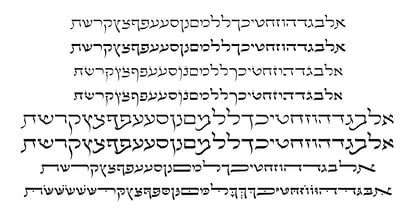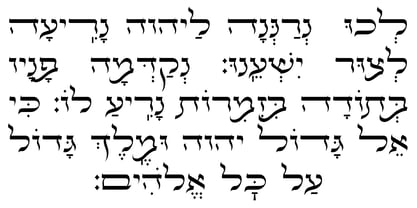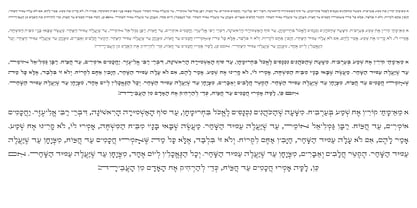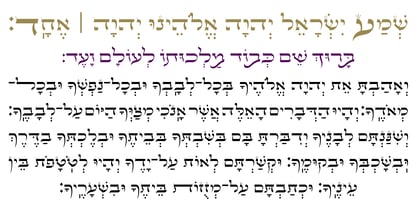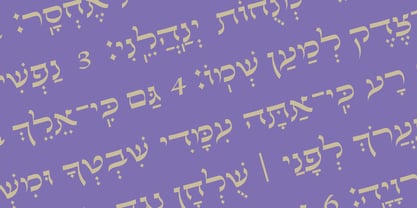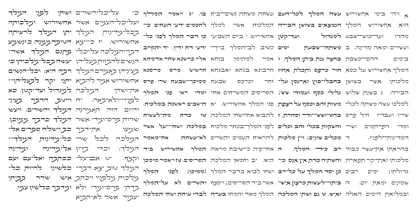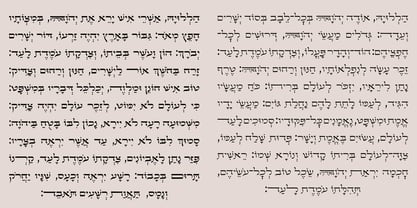
Hebrew Yossef Std
by Samtype
The Hebrew Yossef Std Font Family was designed by Sami Artur Mandelbaum and published by Samtype. Hebrew Yossef Std contains 6 styles and family package options. More about this family
Beautiful and elegant typeface, excellent for use in wedding invitations, arts, posters, and small texts.
Designers: Sami Artur Mandelbaum
Foundry: Samtype
Foundry specialized in hebrew type and complex opentype features. Our fonts are in OTF CFF format. All of our fonts have at least Nikud and Meteg, many of them have advanced OpenType features, like Discretionary Ligatures and Stylist Sets. Almost all of them have modern Nikud like Shevana, Kamatz Katan, Dagesh Chazak, and Holam Chaser. Tanakh fonts have all Nikud and Teamim. You can make a Tanakh with them. All of them have modern Nikud like Shevana, Kamatz Katan, Dagesh Chazak, and Holam Chaser, and advanced OpenType features, like Discretionary Ligatures, Stylist Sets, Contextual Alternates, Justification Alternates, and others.